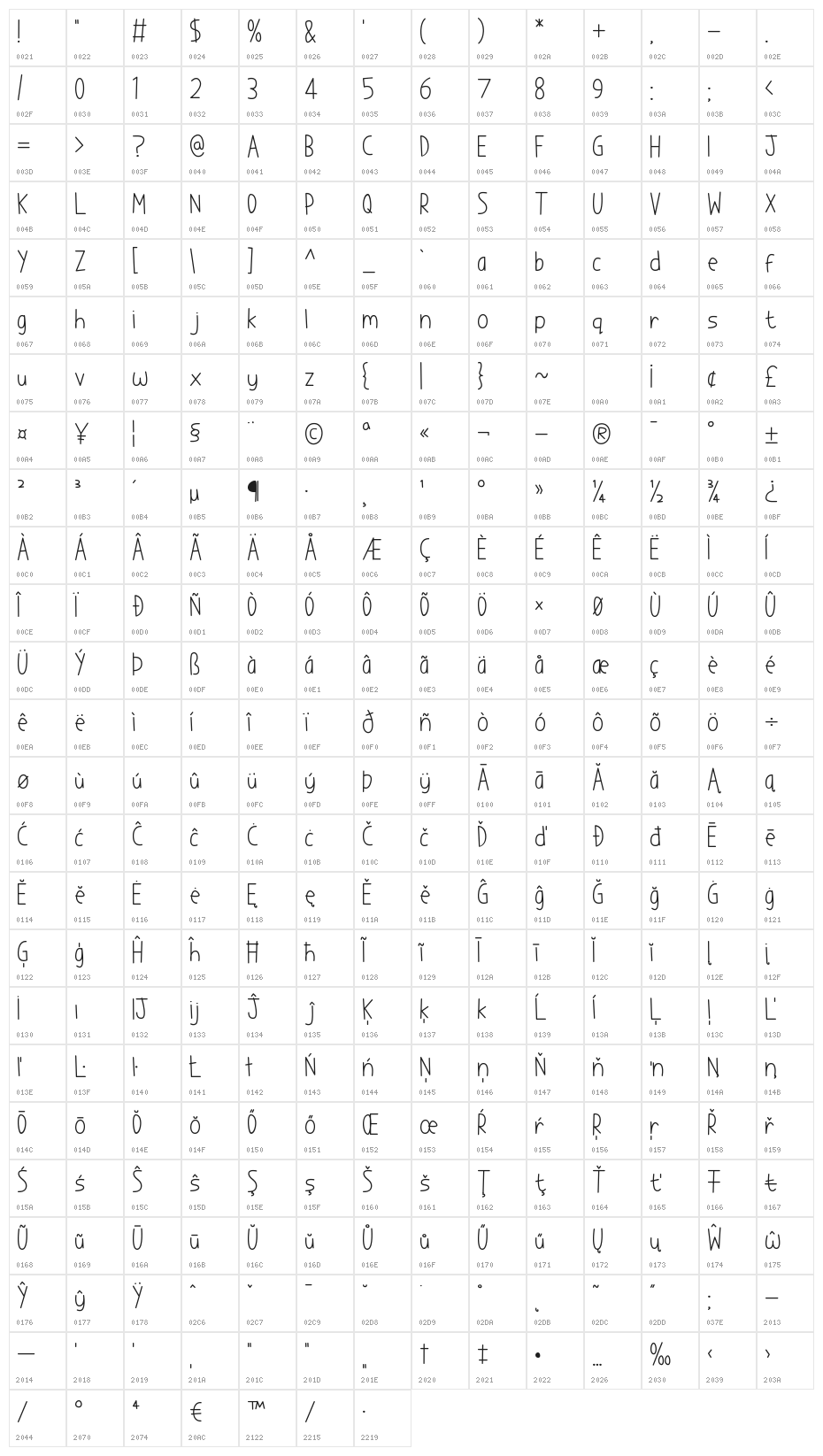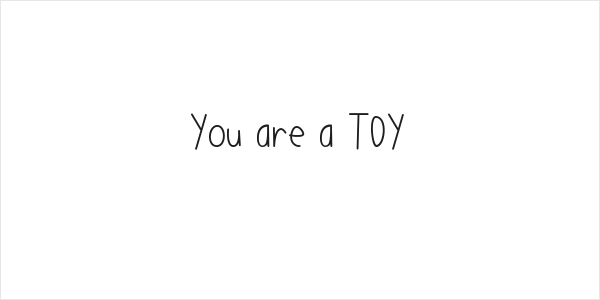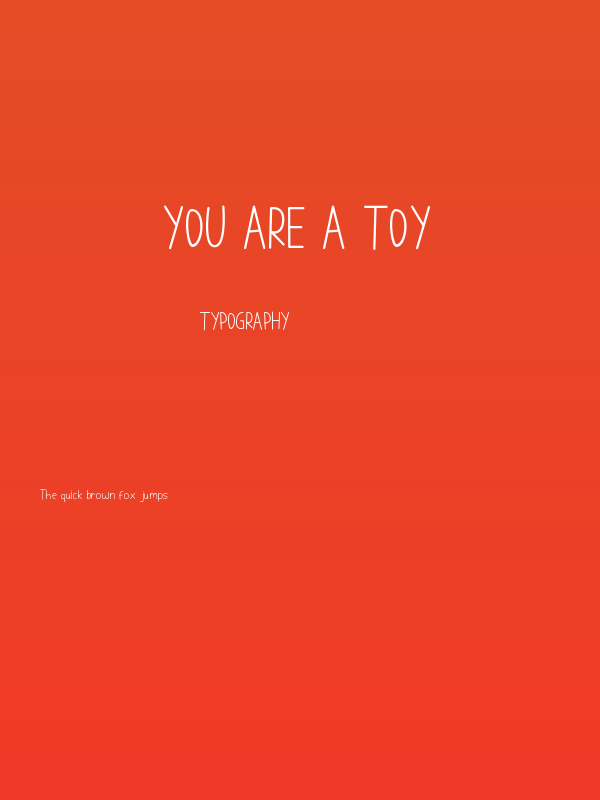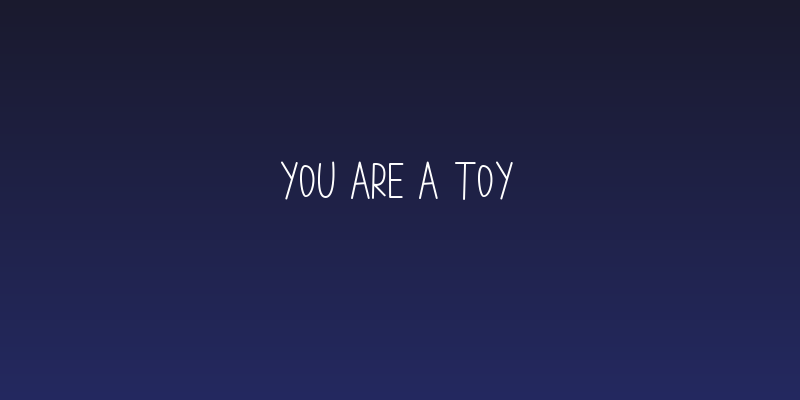
You are a TOY Font
You are a TOY Description
This playful and whimsical font features a handwritten style with a casual and friendly appearance. The characters are slightly irregular, adding to its charm and informal vibe. The uppercase letters are tall and narrow, while the lowercase letters maintain a consistent height, creating a harmonious balance. The numbers are clear and easy to read, and the special characters are well-integrated, maintaining the overall aesthetic. This font is perfect for projects that require a personal touch or a fun, lighthearted feel.
| Proposed Projects | Ideal for children's books, greeting cards, playful branding, and informal invitations. |